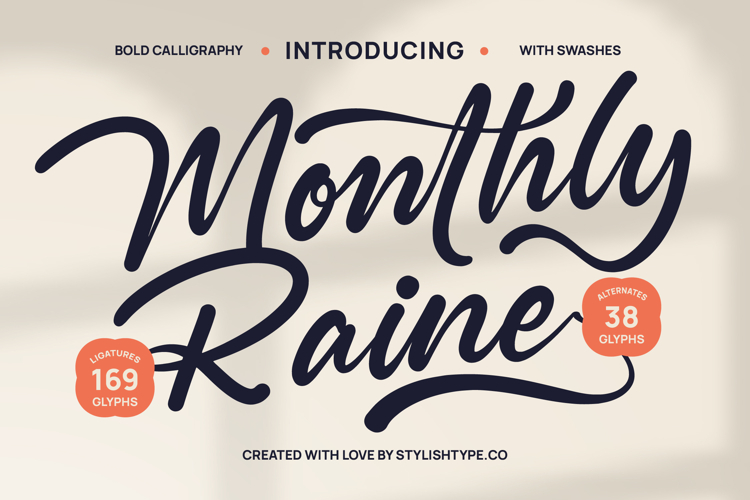
Monthly Raine - Bold Calligraphy Font
Elevate your design projects with the captivating elegance of Font Monthly Raine - Bold Calligraphy Font Script. This exquisite script font marries the timeless beauty of traditional calligraphy with a modern, expressive flair. Its bold strokes and fluid connections create an immediate sense of sophistication and artistic craftsmanship, ensuring your text commands attention. Perfect for making a memorable visual statement that is both eye-catching and refined.
Unlock unparalleled creative possibilities with Font Monthly Raine - Bold Calligraphy Font Script’s rich OpenType features. Boasting an impressive collection of 169 ligatures and 38 alternates, alongside stylish swashes, this font allows for truly unique customization. Each character flows seamlessly, enabling designers to craft bespoke lettering that feels genuinely handcrafted and exceptionally refined, adding significant depth to any layout.